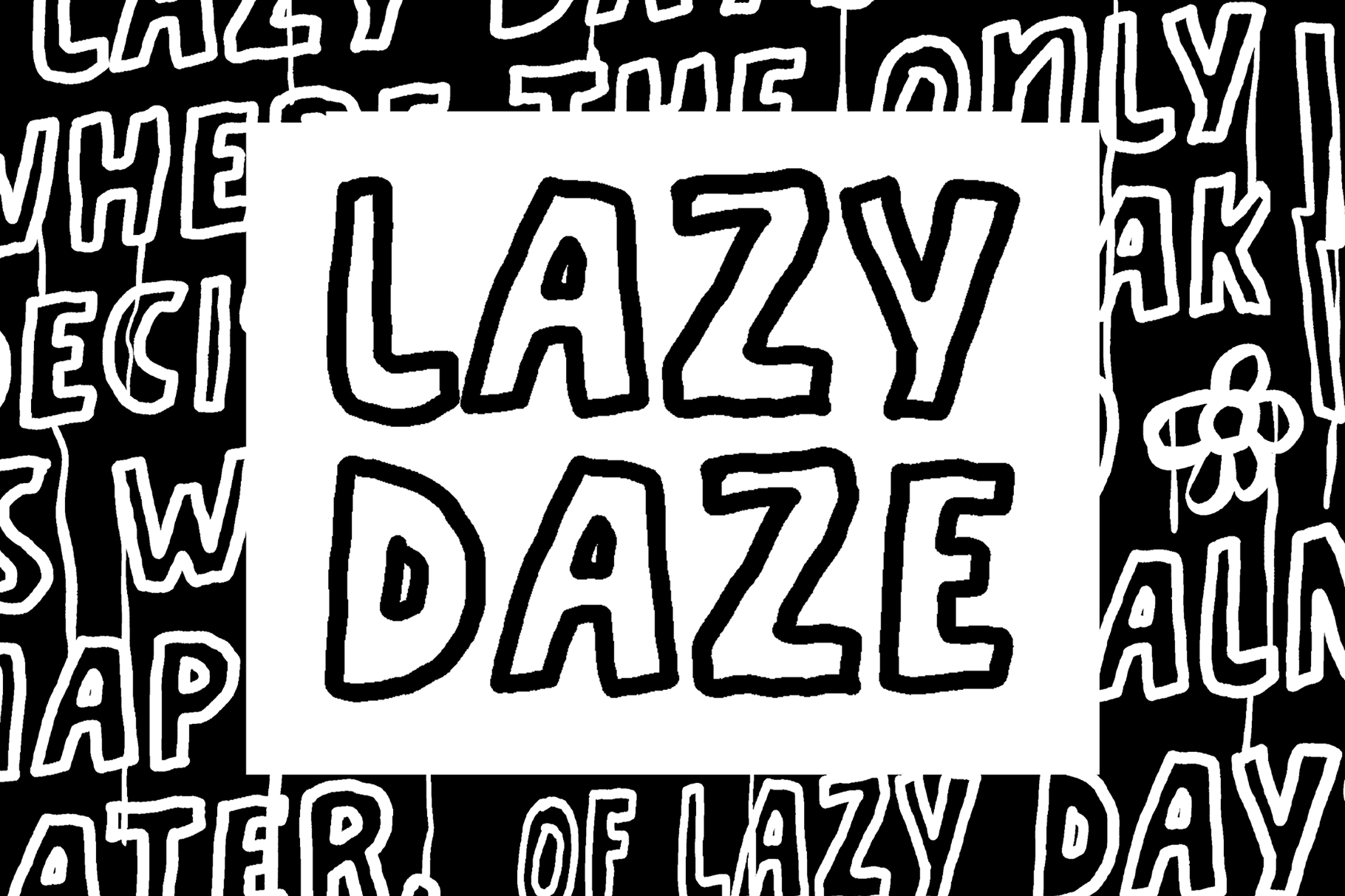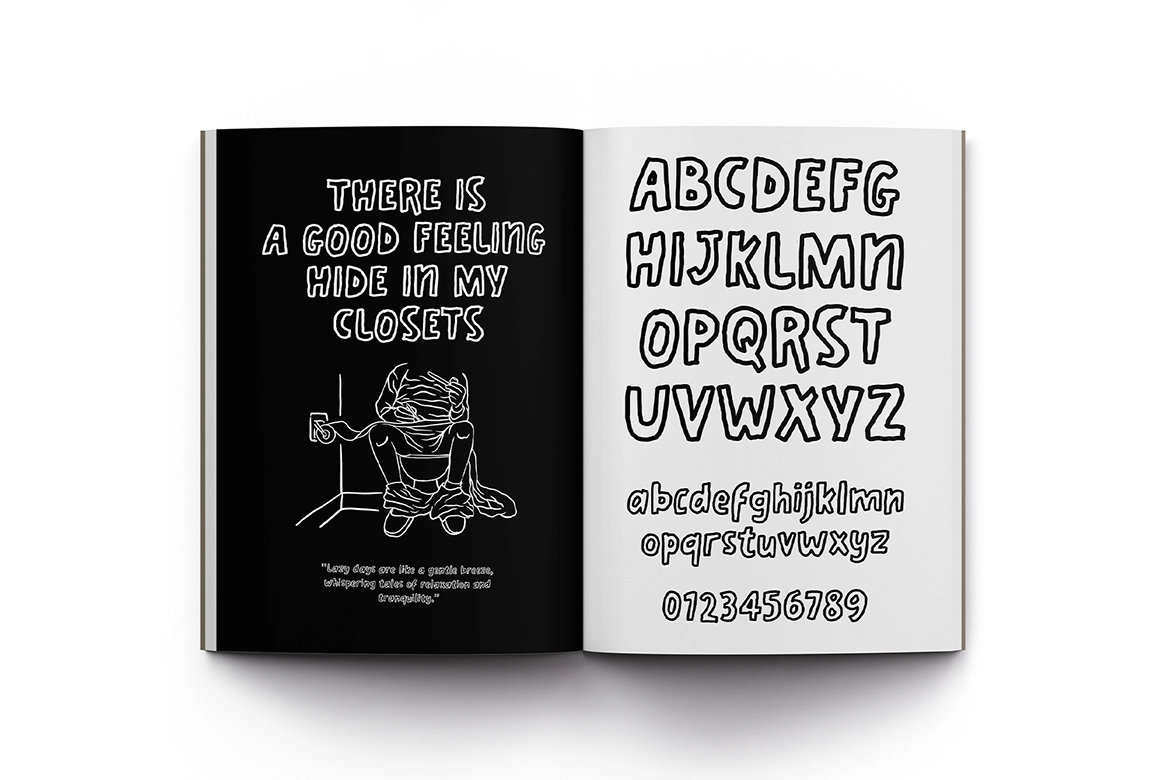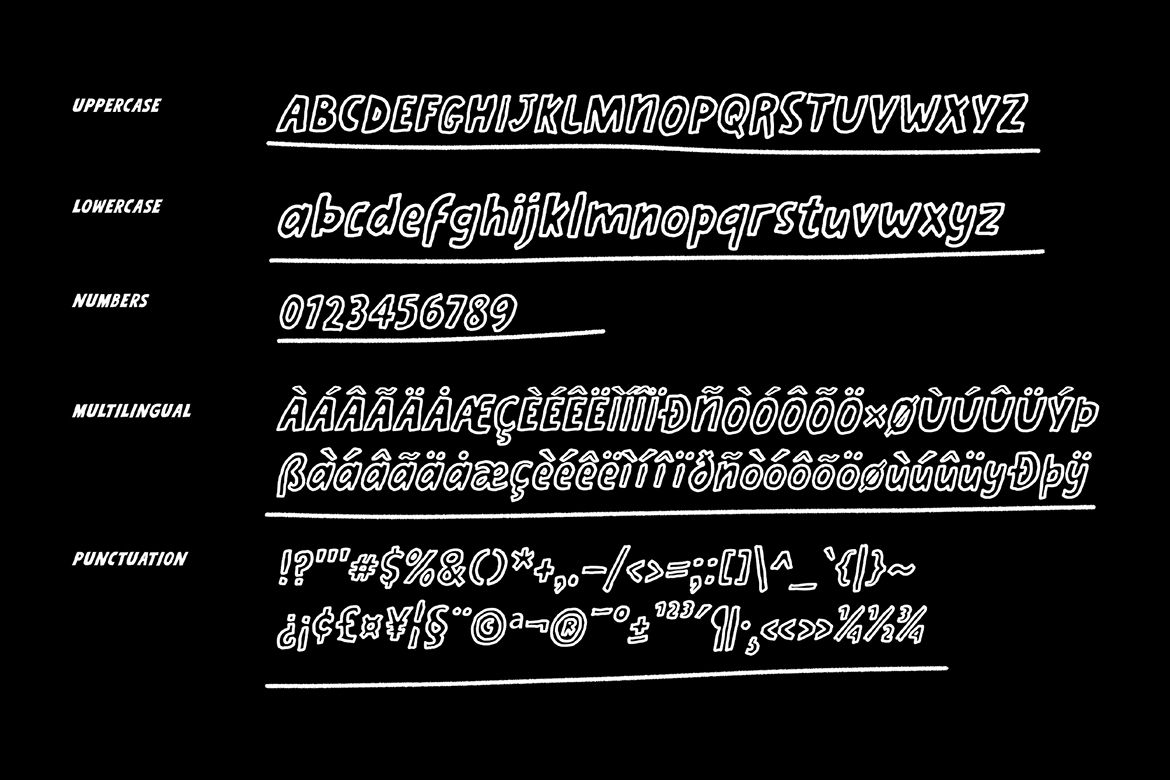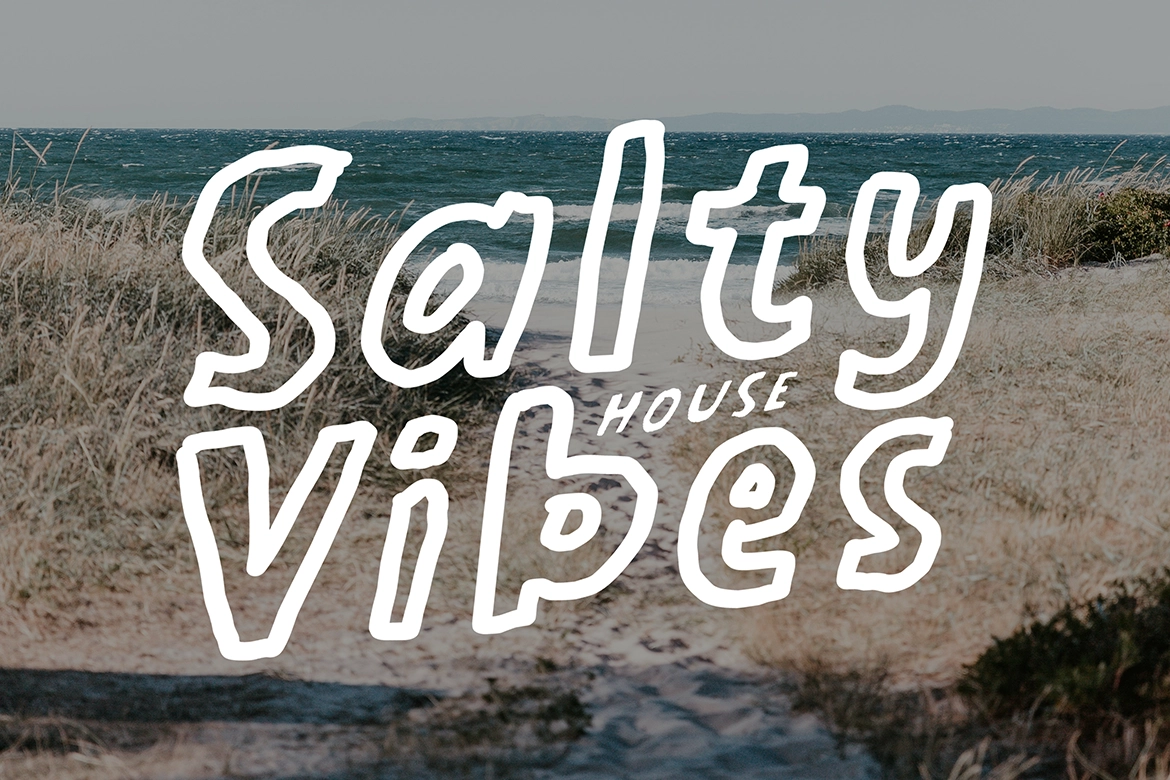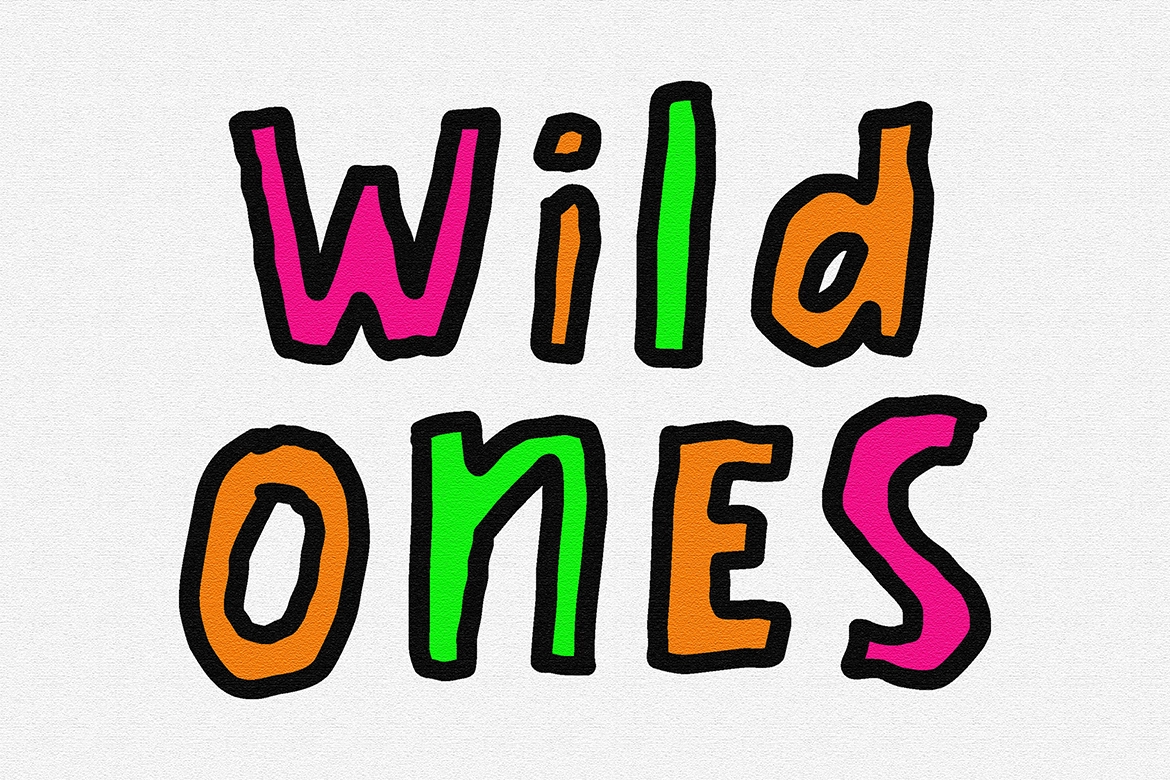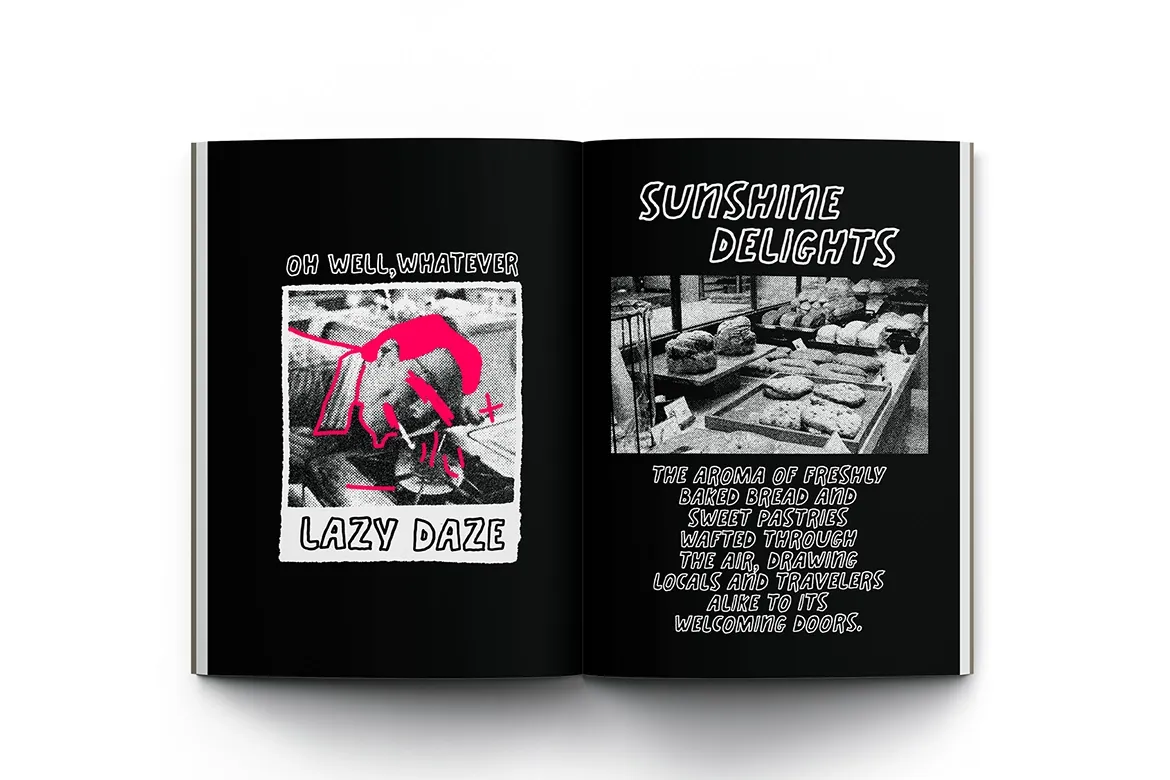
Lazy Daze Font
ATP-LazyDaze
Lazy Daze is a typeface characterized by its imperfect, hand-drawn appearance. The edges of the letters are uneven, with jagged or irregular lines that give the text a distressed or textured look. This font style often mimics the effect of sketching with a pencil or pen, where the strokes are not smooth or uniform, creating a rugged, unfinished vibe.